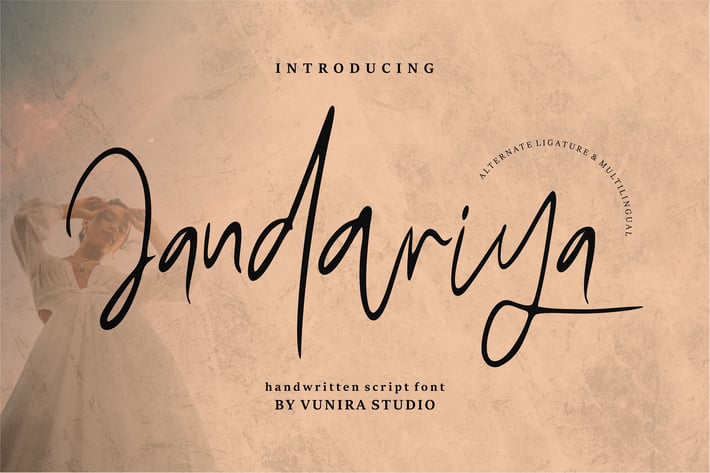
Jandariya | Handwritten Script Font
Jandariya | Handwritten Script Font with a calligraphy style, So beautiful on invitation like greeting cards, branding materials, business cards, quotes, posters, and more!